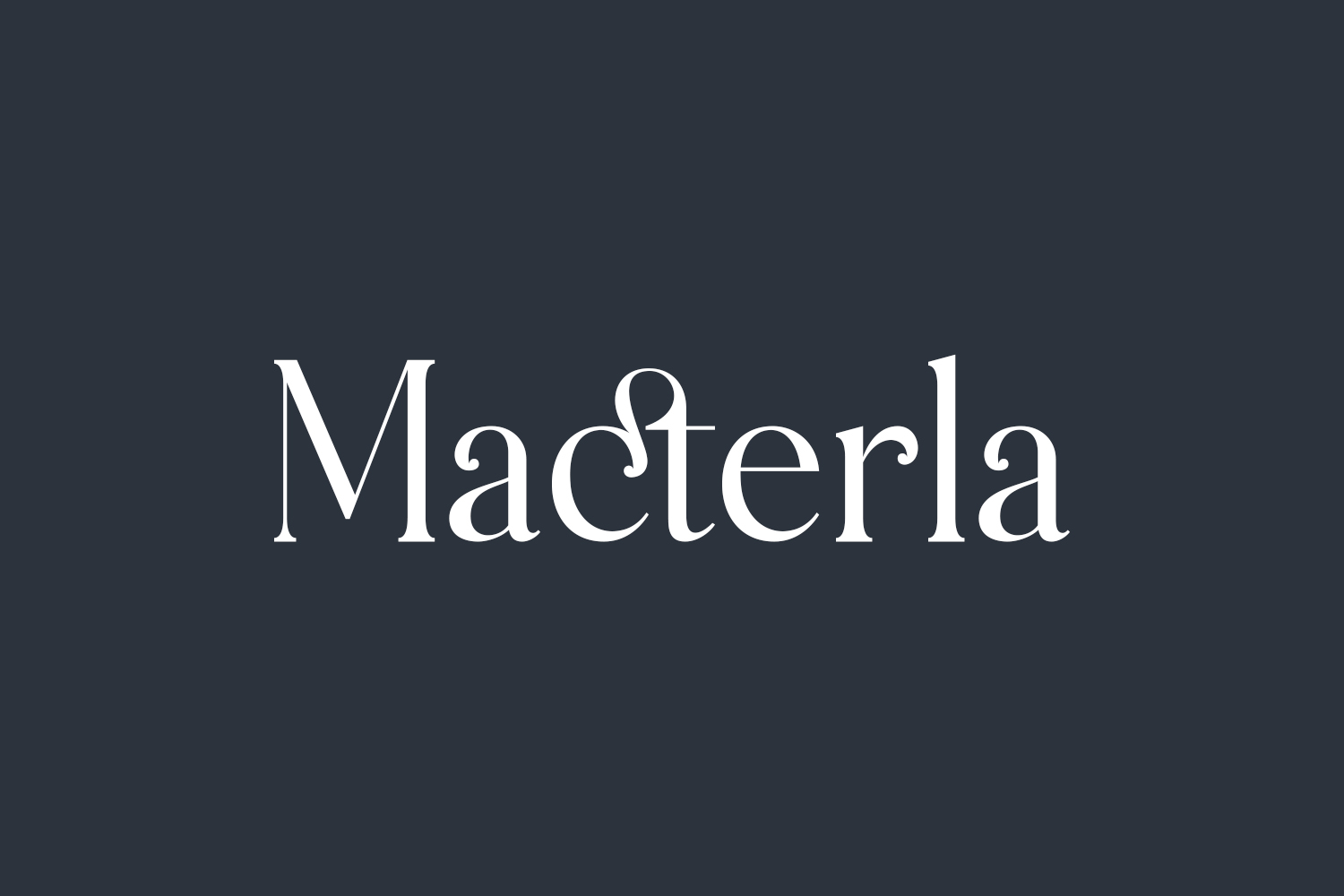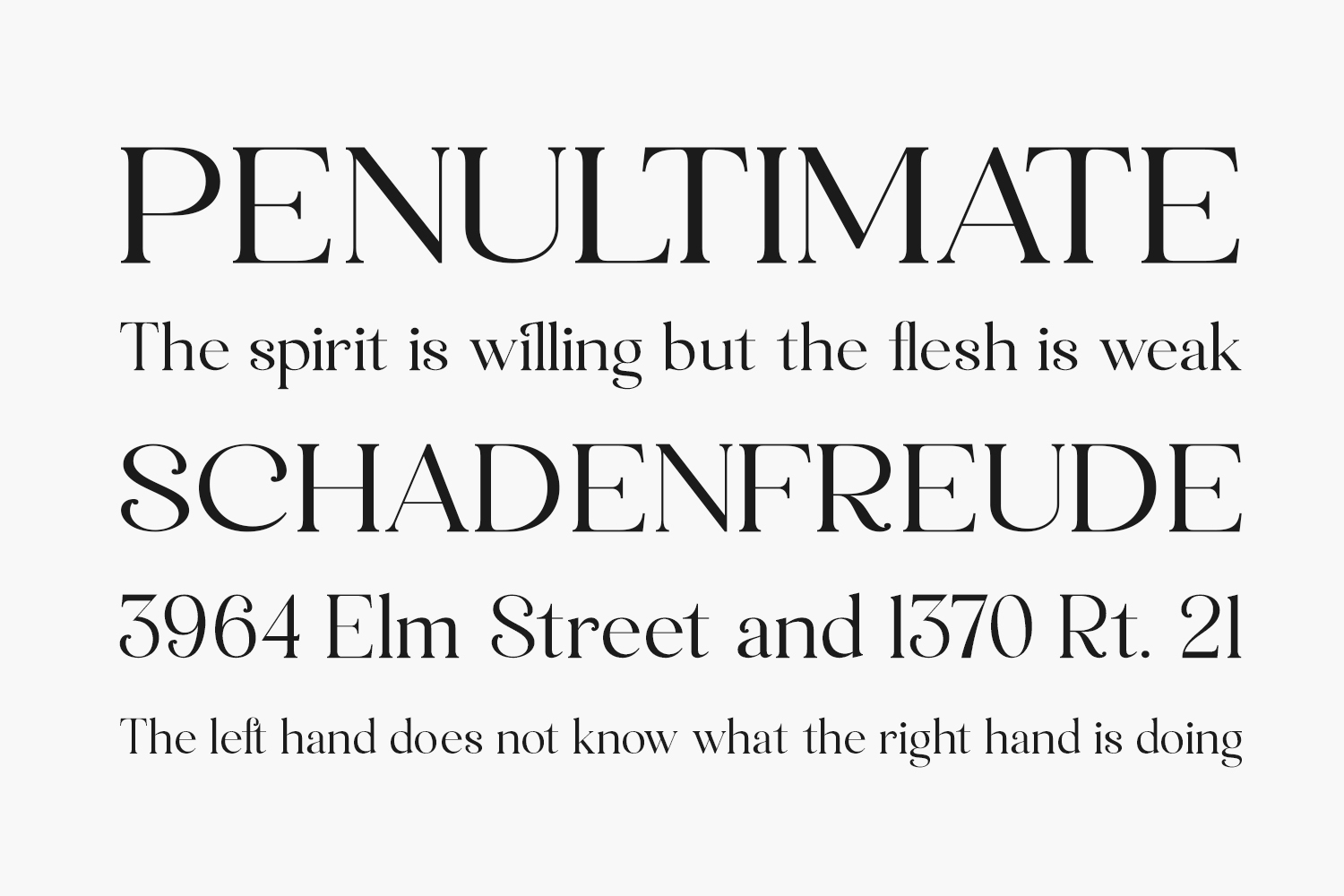
Experience the sophistication of Macterla Free Font, a contemporary serif font boasting a distinctive style. Ideal for creating luxurious and elegant logos, captivating book or movie titles, fashion brands, magazines, clothing designs, exquisite lettering, memorable quotes, and a myriad of other creative endeavors. Download the font for free if you need it for personal use or purchase the full version for commercial use.